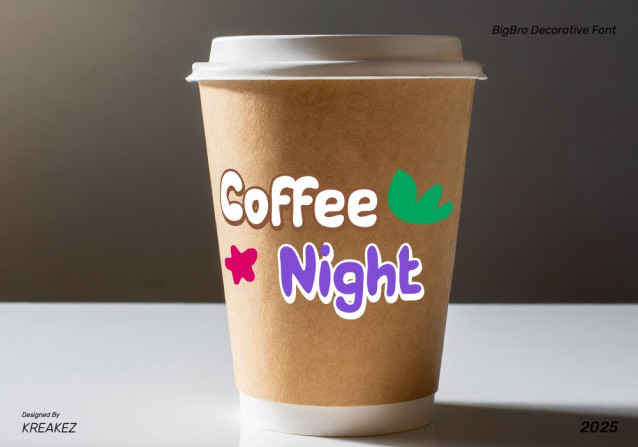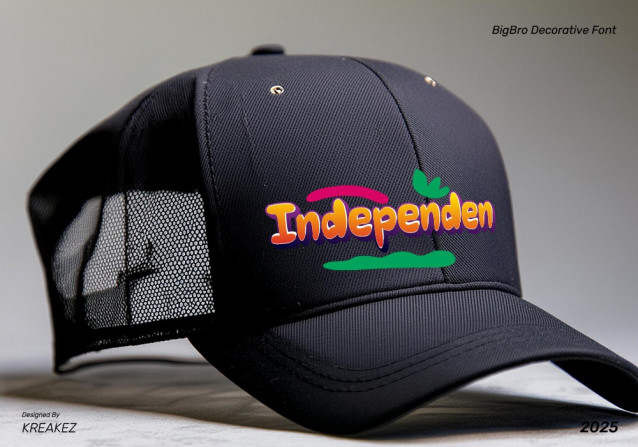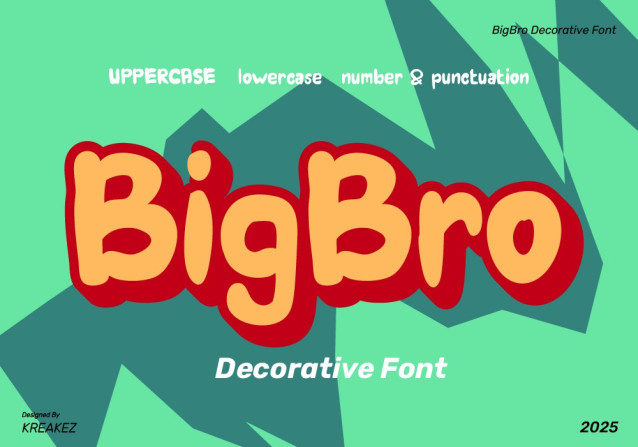
BigBro Display Font is a chunky, comic, and cartoon display font. With its neat and joyful personality, this font will enhance any project you wish to create!